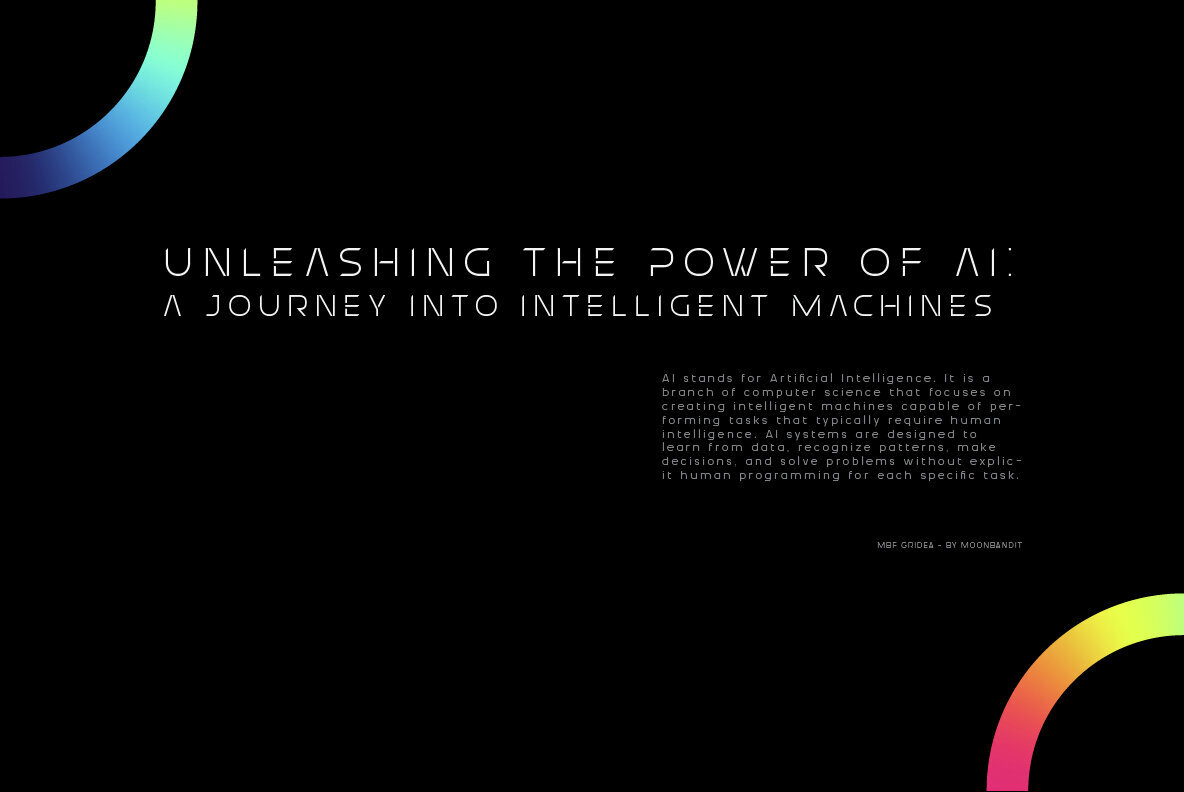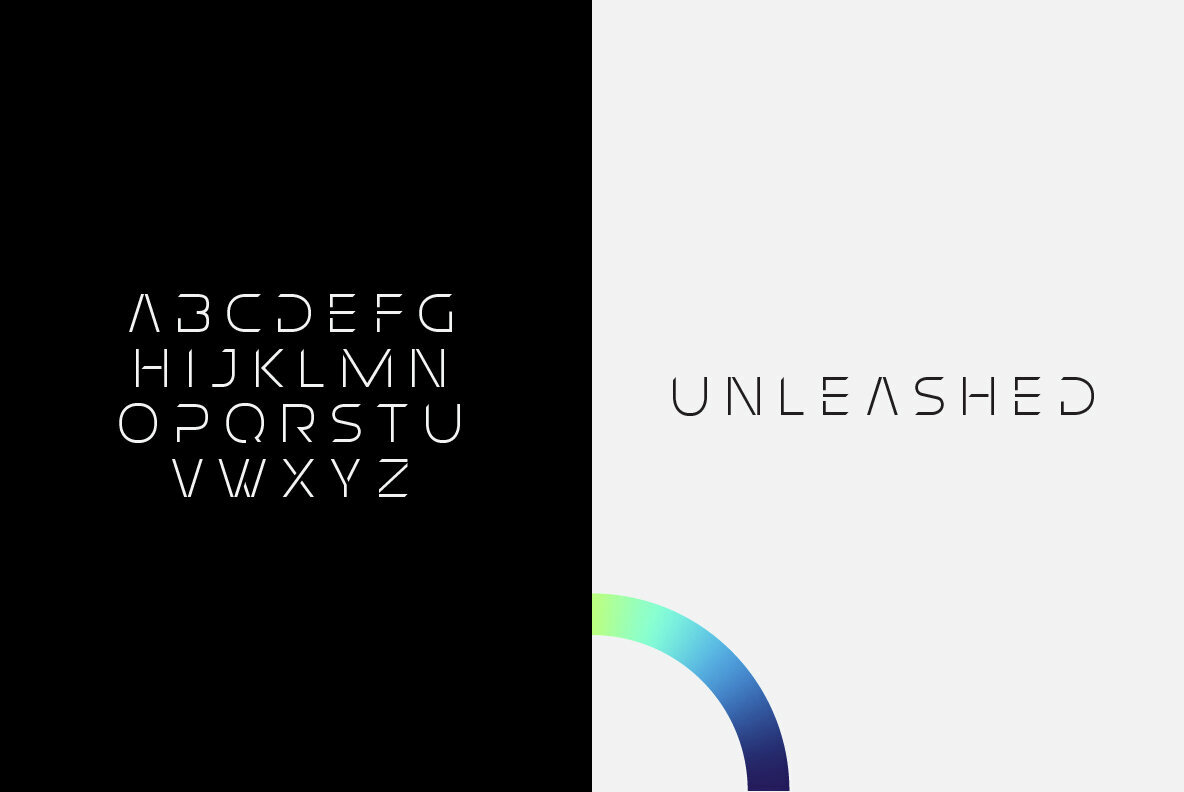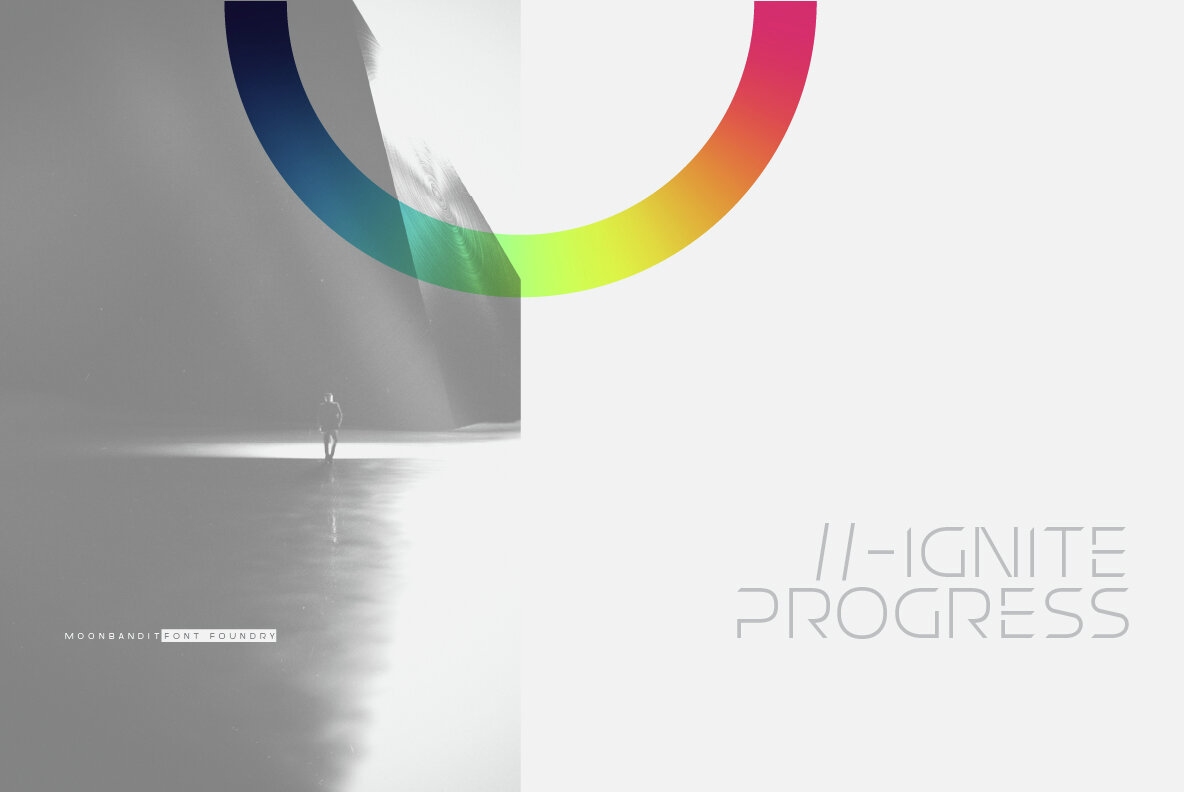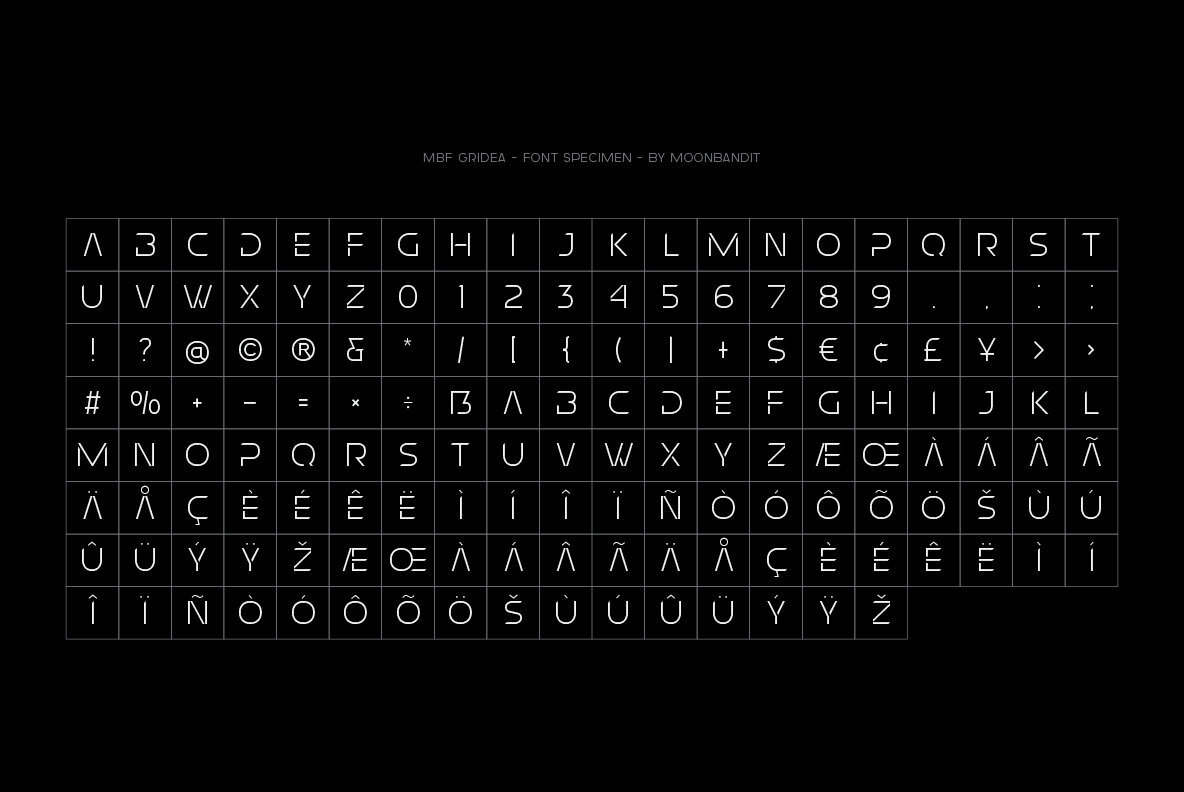
MBF Gridea
Inspired by the clean lines and geometric precision of grid-based designs, MBF Gridea exudes a sense of order and modernity. Its sleek and angular letterforms radiate a sense of technological prowess, making it the perfect choice for projects that demand a cutting-edge and forward-looking aesthetic. With its captivating presence, MBF Gridea is a versatile typeface that thrives in a wide range of applications. From high-tech interfaces and futuristic movie titles to sci-fi book covers and gaming graphics, this font effortlessly transforms ordinary designs into extraordinary visions of the future.